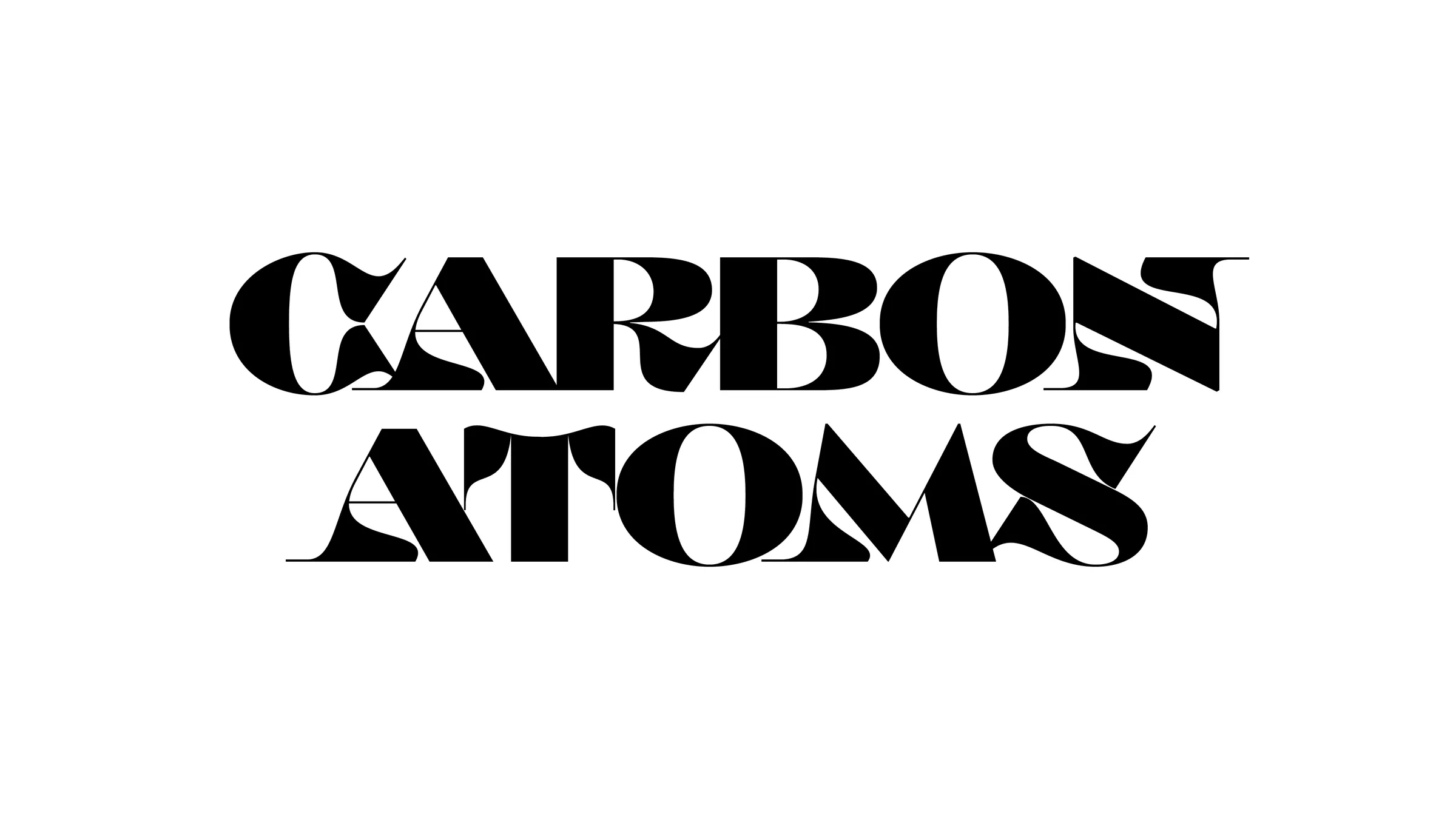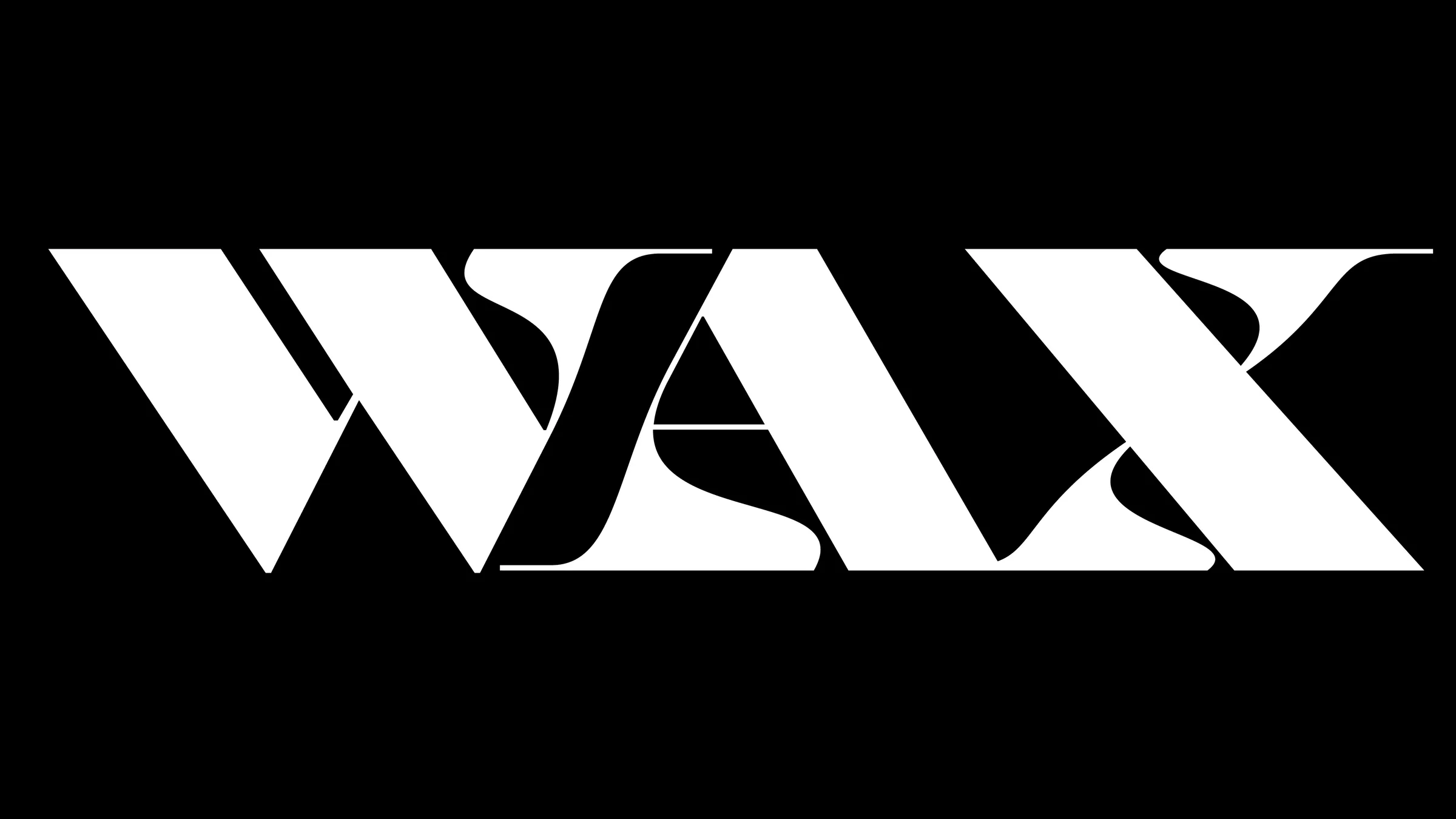
Kerozene is an experimental letter design project that begins with a formal exercise aimed at creating a typeface where serifs would be the most significant formal aspect. How to make a serif the primary element of a letter, thus giving it a distinct and interesting identity in its design. Kerozene seeks to base each letter on only a few components, evoking the idea of liquid, sticky, and flammable material. Kerozene aims to provide more than just a tone but rather a texture, a tactile feel to the words it represents